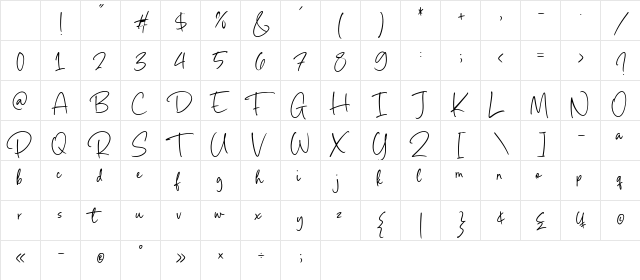
Palms Delight is a composed and adaptable typeface that performs quietly and consistently across a wide range of design contexts. Its slender proportions lend an understated elegance to any composition.